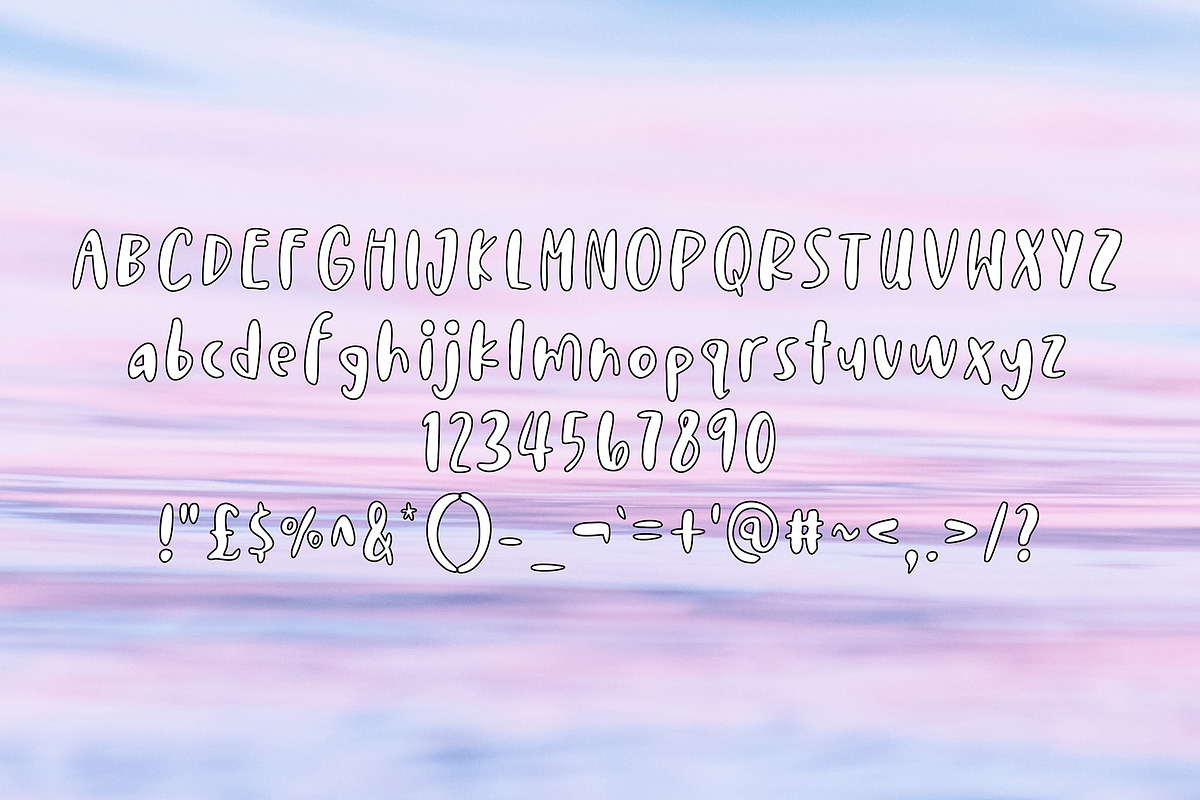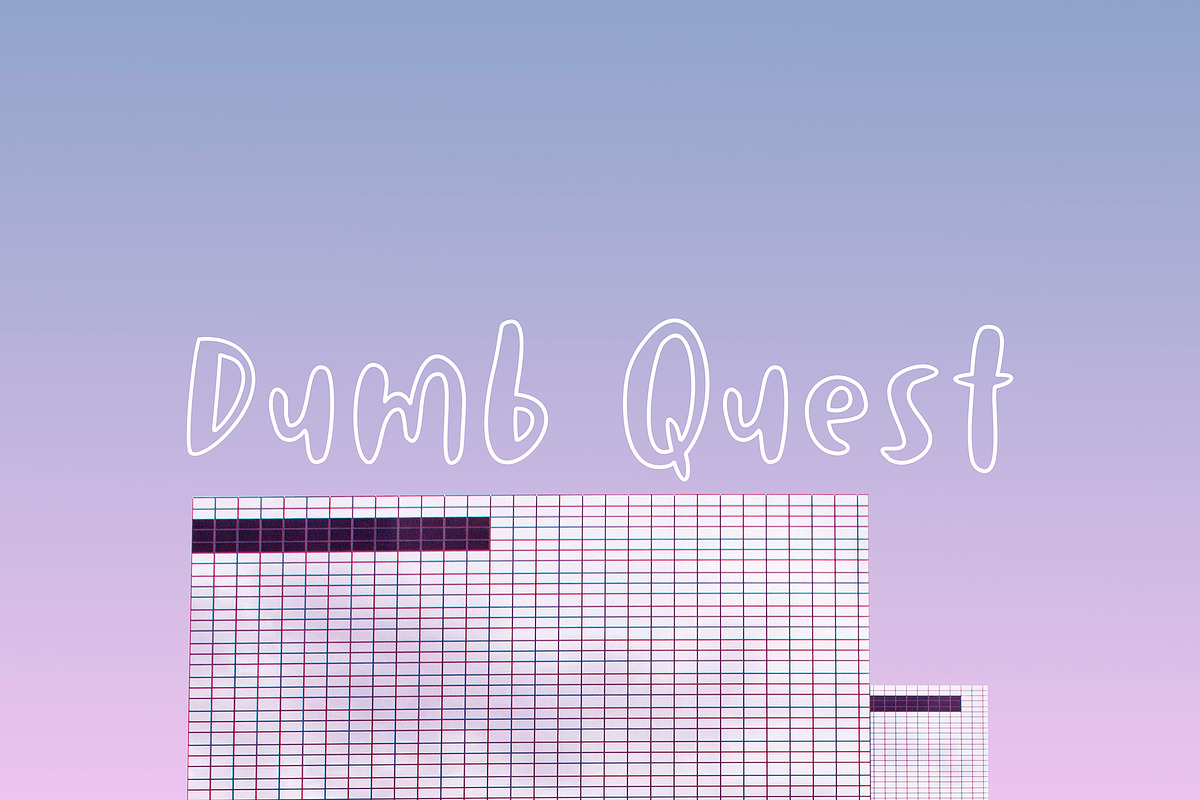
Dumb Quest Handwritten Outline Font
A handwritten outline font. This playful font would look great in your print, mug or invitation designs.
Included in this listing is the upper case and lower case letters, numbers and special characters.